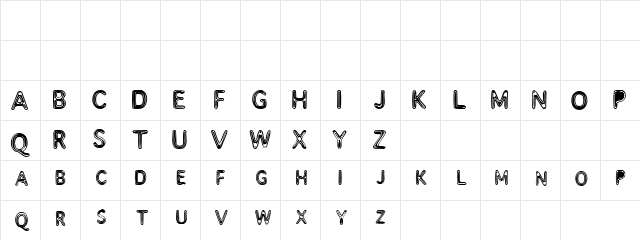
roundinround Regular
Design Context for roundinround Typeface
roundinround softens its letterforms with rounded terminals, giving it an approachable, friendly quality that works well in consumer-facing and digital contexts.
A natural fit for tech startups, health and wellness brands, children's products, and friendly consumer apps.
Font Pairing: Pairs well with a rounded or humanist sans for body copy, maintaining the friendly tone without relying on roundinround to carry extended reading.
Pro Tip: Pair roundinround with a geometric sans for a balanced system — the rounded softness works as a warm counterpoint to harder-edged companions.